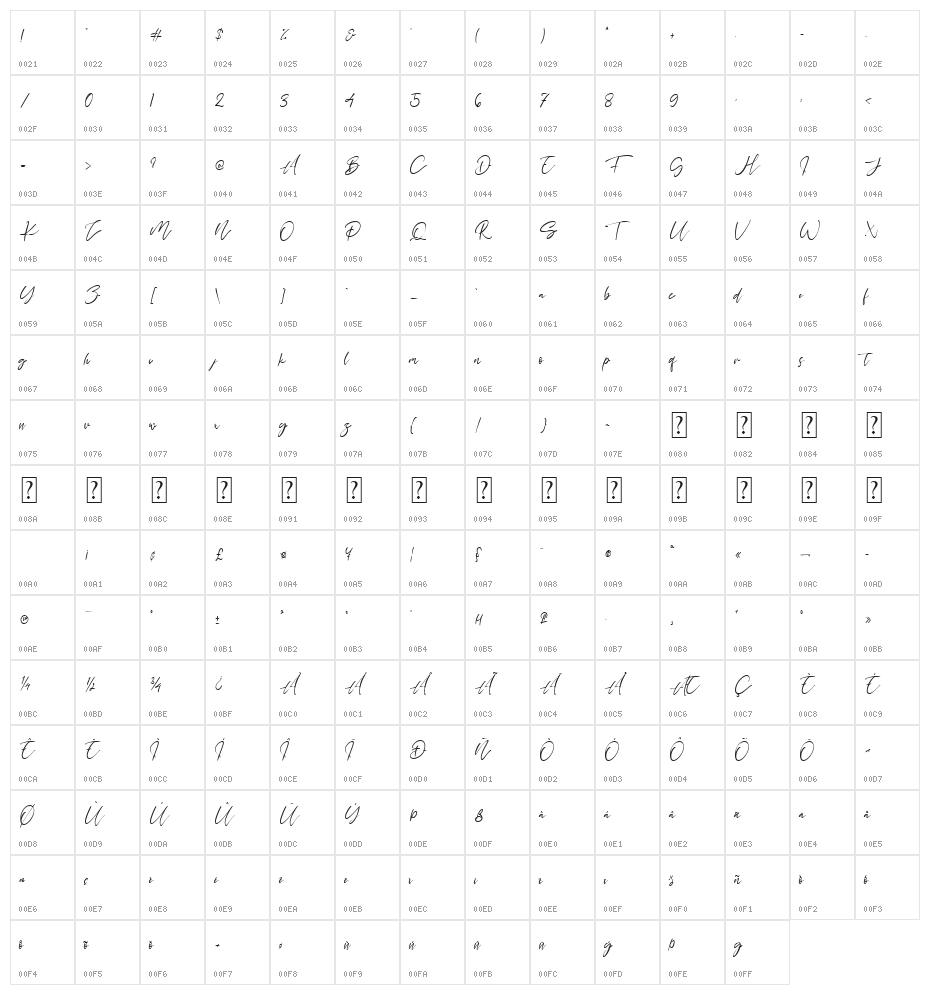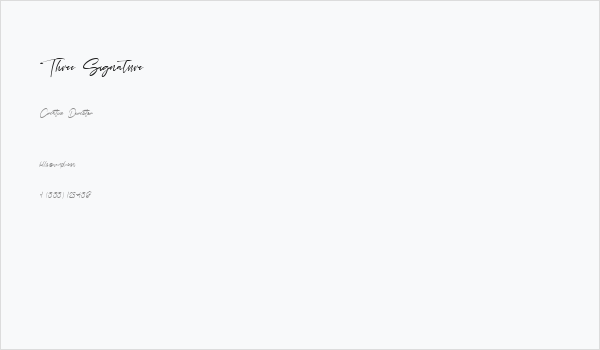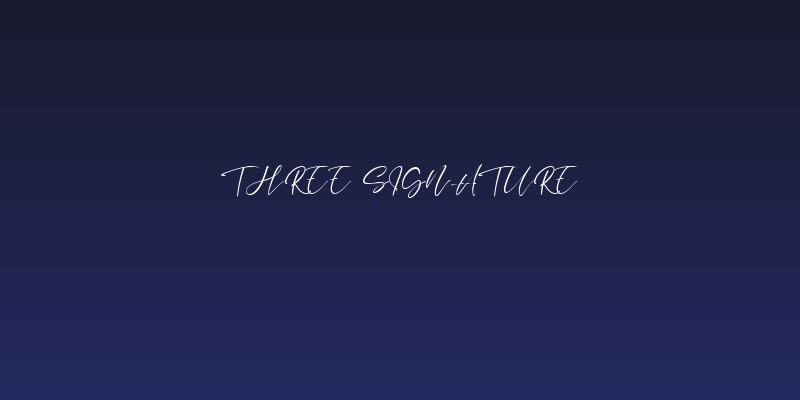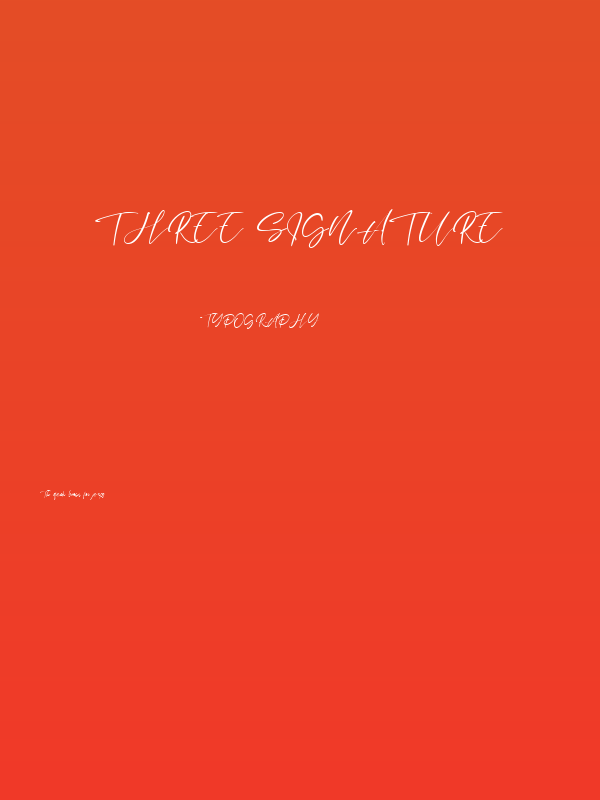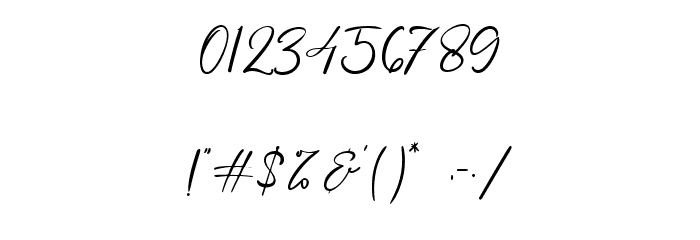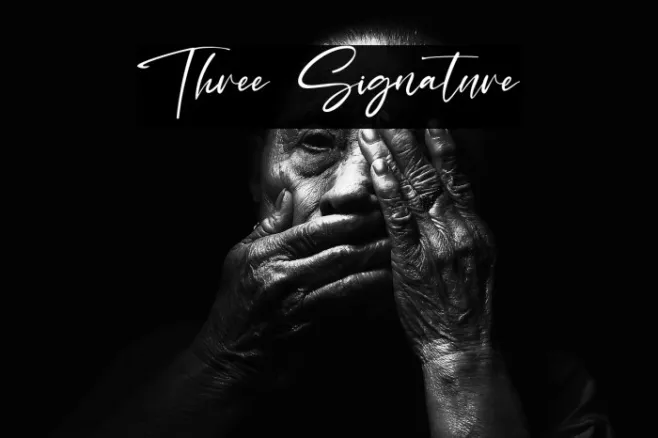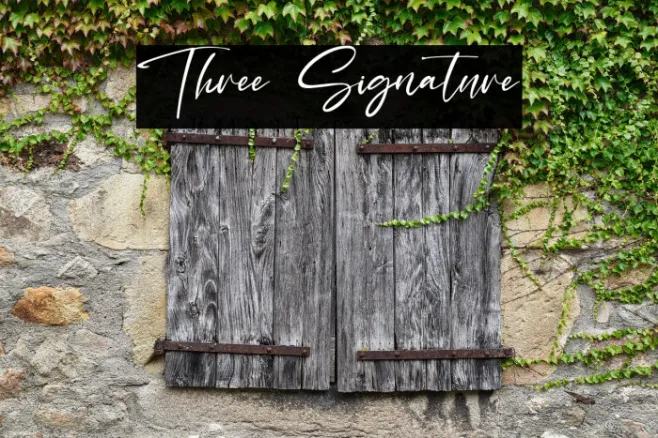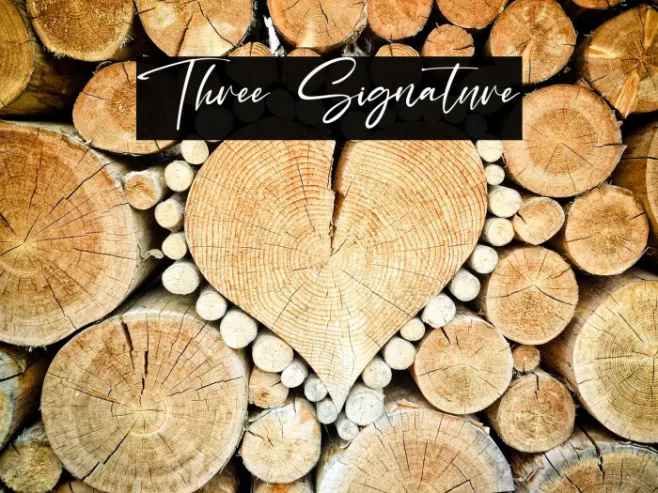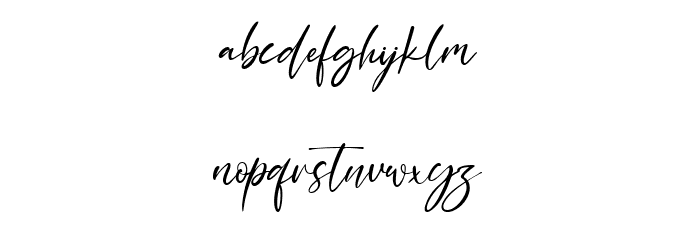
Three Signature Font
Three Signature Description
This elegant script font features a fluid, cursive style that mimics natural handwriting with a touch of sophistication. The letters are gracefully connected, creating a seamless flow that is both stylish and readable. The uppercase letters are slightly more embellished, adding a touch of flair, while the lowercase letters maintain a consistent and smooth appearance. The numerals and special characters are designed to match the overall aesthetic, ensuring a cohesive look across all text. This font exudes a sense of elegance and personal touch, making it ideal for projects that require a handwritten feel.